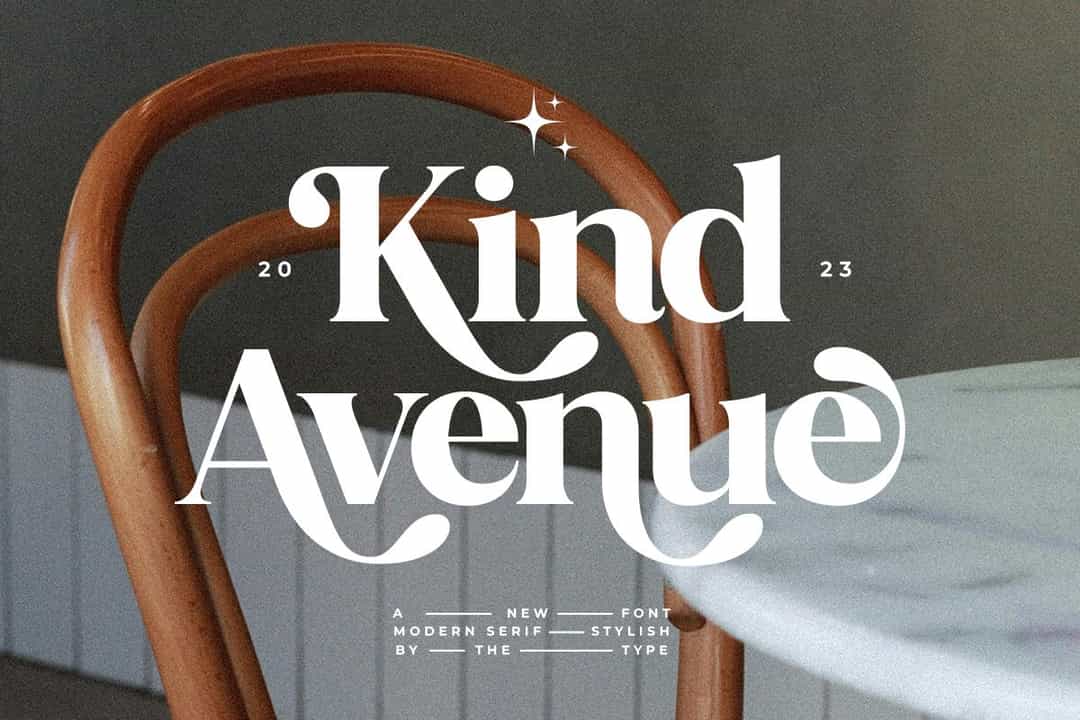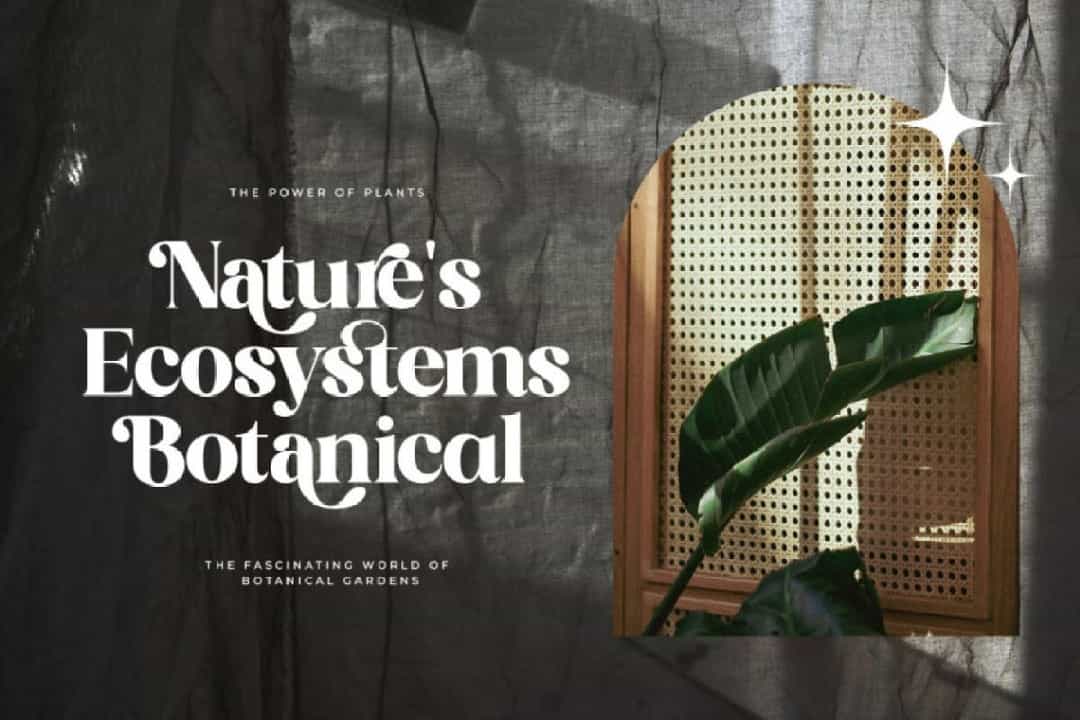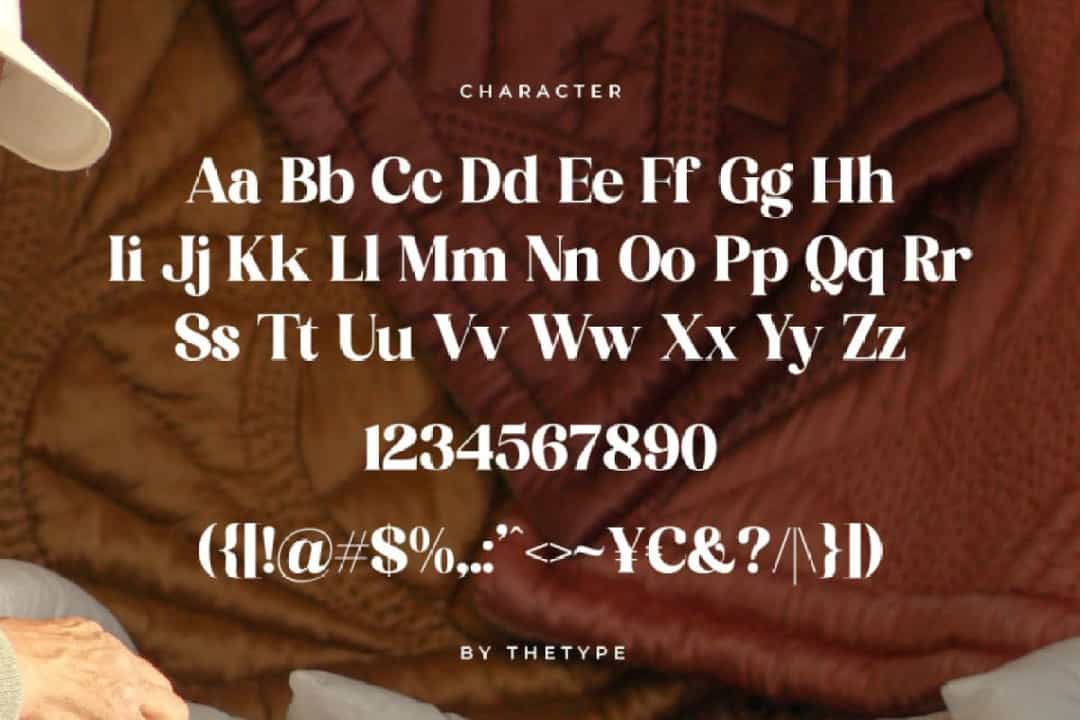
Kind Avenue is a stylish Vintage Serif font. While this font could appear to be more classic (conservative), its expressive characters and playful nature make it versatile enough to look contemporary through substitutions and ligatures; you may experiment with them and achieve the distinct style you seek in your work.